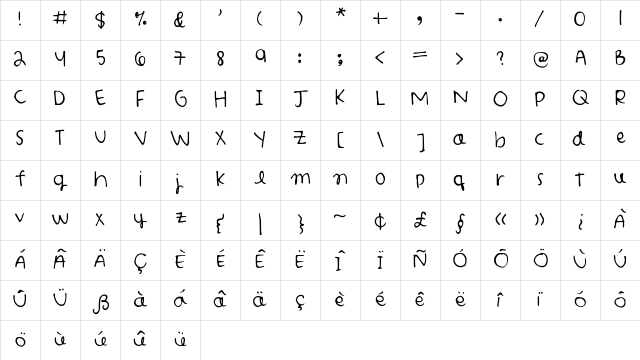
Abigail Print Regular
Design Context for Abigail Print
Abigail Print is a composed and adaptable typeface that performs quietly and consistently across a wide range of design contexts.